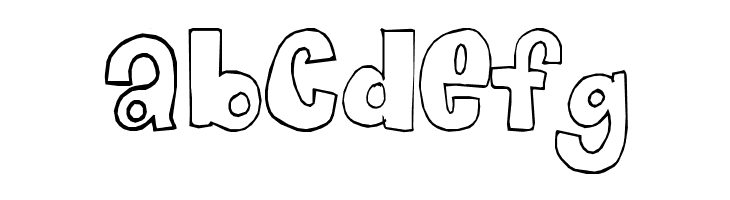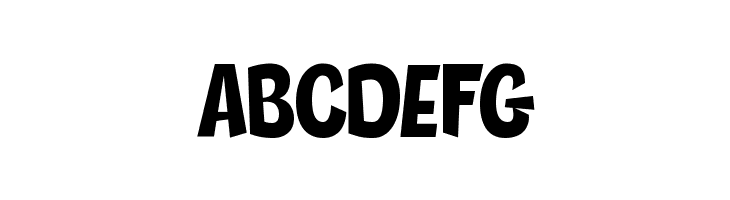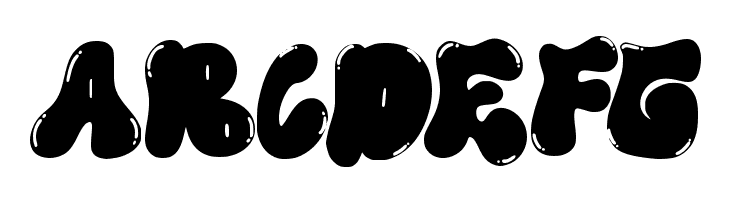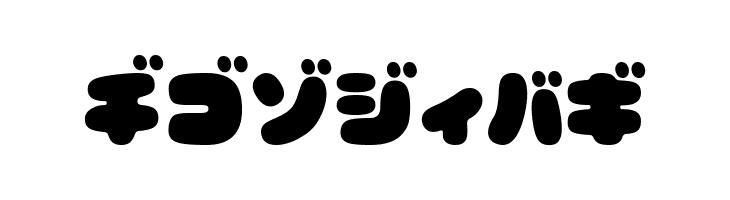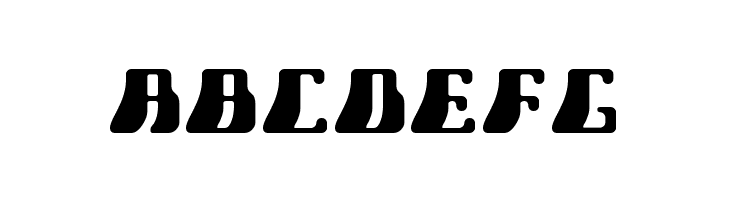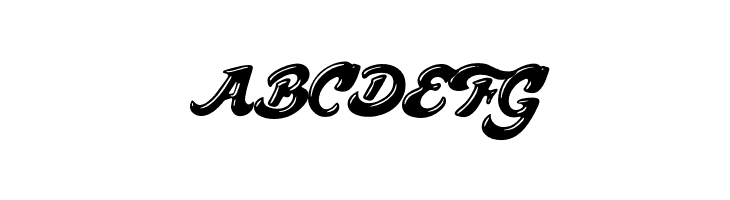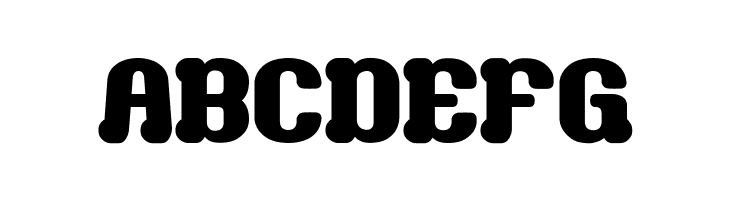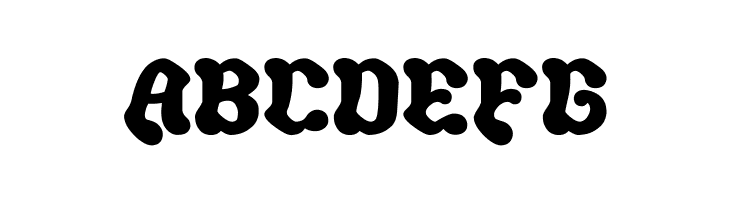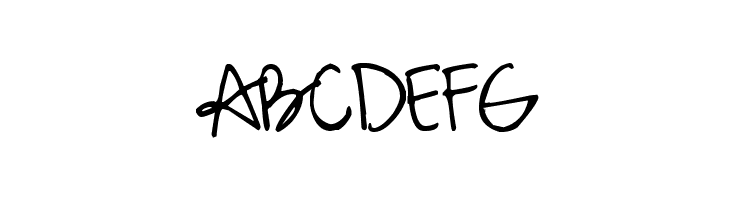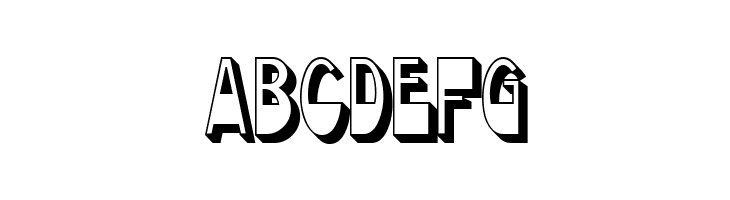
A playful, bold handwritten font with rounded, smooth characters.
A bold, rounded font with a strong and friendly appearance.
A playful and bold font with exaggerated curves and a lively personality.
A playful, bold font with a bubbly, liquid-like design.
A playful and whimsical font with tall, narrow characters and a mix of thick and thin strokes.
A bold, playful font with a 3D shadow effect, perfect for dynamic and fun designs.
Bold, boxed uppercase font with a vintage-modern style.
A bold, blocky font with uppercase letters enclosed in square borders, ideal for impactful designs.
A playful, bold, hand-drawn font with a cartoon-like style.
A bold, playful font with thick, rounded characters and a whimsical style.
A playful, hand-drawn font with a whimsical, doodle-like style.
A bold, retro-style font with a 3D shadow effect.
A playful, bold font with rounded, bubble-like characters.
A bold, playful font with rounded edges and a bubbly appearance.
A playful, bold font with rounded, bubble-like characters perfect for fun designs.
A bold, chaotic, and abstract decorative font with unique, fragmented letterforms.
A bold, cursive font with dynamic curves and a shadow effect for added depth.
A bold, playful font with rounded edges and a bubbly appearance.
A playful, bold font with rounded strokes and a whimsical, retro-modern style.
A playful handwritten font with a whimsical and informal style.
A whimsical, bold serif font with playful, decorative elements.
A playful, bold handwritten font with a whimsical and casual vibe.
A playful handwritten font with smooth, rounded strokes and a casual vibe.
A playful, hollow, hand-drawn font with a whimsical and friendly style.
A bold, playful font with vintage-inspired, thick strokes.
A playful, bold font with rounded, bubble-like characters.
A distressed, vintage-style font with a hand-crafted appearance.
A dynamic, expressive script font with fluid, cursive strokes and elegant flourishes.
An elegant and sophisticated script font with intricate swashes and flourishes.